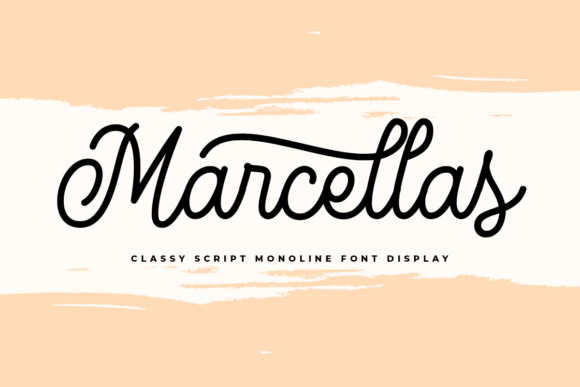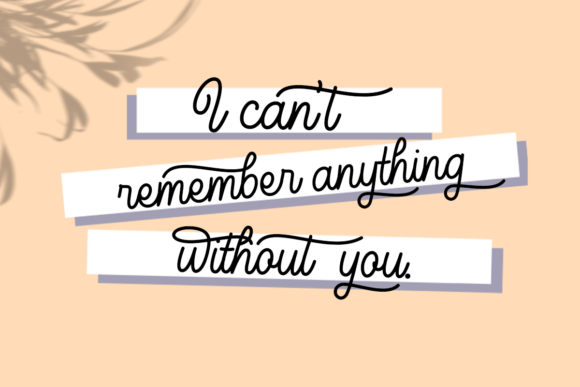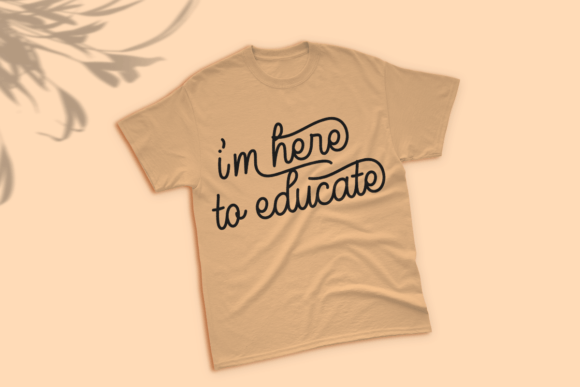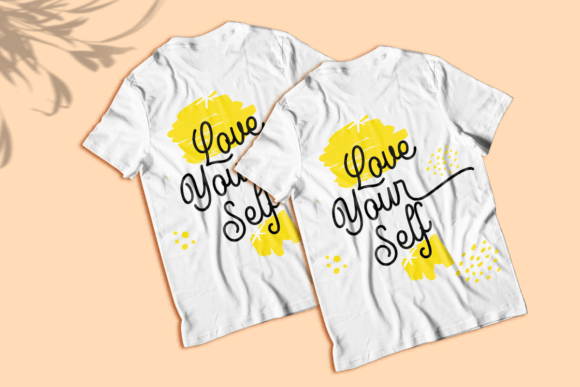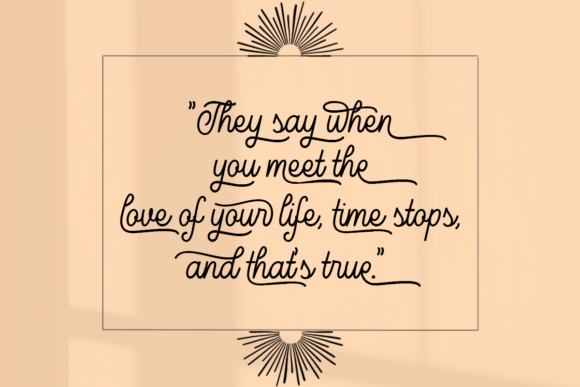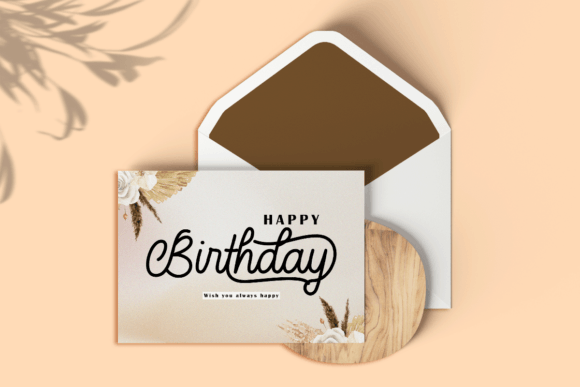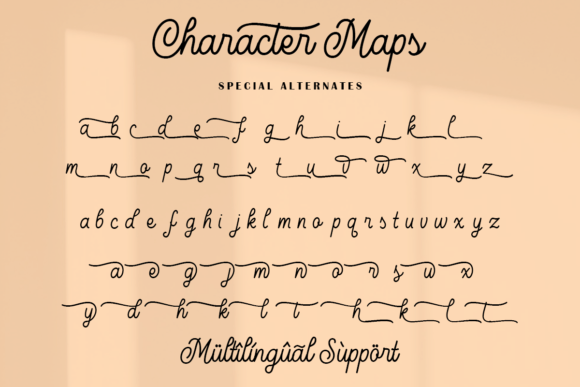
Marcellas Font
About Marcellas Font
“Marcellas” is not just a font; it’s a touch of elegance, a stroke of artistic magic that transforms ordinary designs into extraordinary creations. Its graceful handwritten style exudes class and sophistication, making it a perfect choice for designers and crafters who want to infuse their projects with a hint of charm and allure.
Imagine your wedding invitations adorned with the delicate curves of Marcellas, setting the stage for a celebration filled with romance and grace. Picture your cards, each word written in this font, radiating sweetness and daintiness, making every message feel like a cherished secret. Marcellas is more than just a typeface; it’s a testament to the beauty of handwritten artistry, adding a personal touch to your creative endeavors.
The font’s joyful demeanor lends itself seamlessly to various creative projects. It’s not just ideal for weddings; it’s perfect for any occasion that demands a touch of sophistication. Whether you’re designing greeting cards, creating elegant posters, or working on special event invitations, Marcellas elevates your designs to a level of timeless beauty.
Marcellas is more than just letters on a page; it’s a work of art meticulously crafted to evoke emotions. Its dainty strokes and enchanting loops create a visual melody that resonates with viewers, leaving a lasting impression. The font’s sweetness is palpable, and its joyfulness is contagious, making it a favorite among designers and creators seeking a font that speaks volumes without uttering a word.
One of the exceptional features of Marcellas is its PUA encoding, a treasure trove of amazing glyphs and ligatures that enhance your creative freedom. With ease of access to these artistic elements, your designs can flourish, allowing you to experiment and create truly unique and captivating visuals.
In a world where first impressions are paramount, Marcellas stands as a beacon of style and sophistication. Its handwritten charm not only captures attention but also captures hearts. When you choose Marcellas for your creative projects, you’re not just choosing a font; you’re choosing to weave a tale of elegance and beauty that leaves a lasting mark on anyone who experiences your creations.
So, whether you’re a seasoned designer striving for perfection or a crafter with a passion for creativity, Marcellas is your trusted companion. It’s more than a font; it’s an opportunity to add a touch of magic to your designs, transforming them into timeless pieces of art. Let Marcellas be the brush that paints your imagination and the handwritten touch that adds a touch of class to your creations.